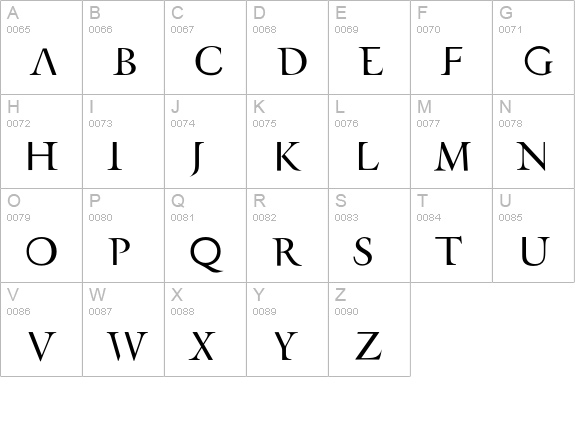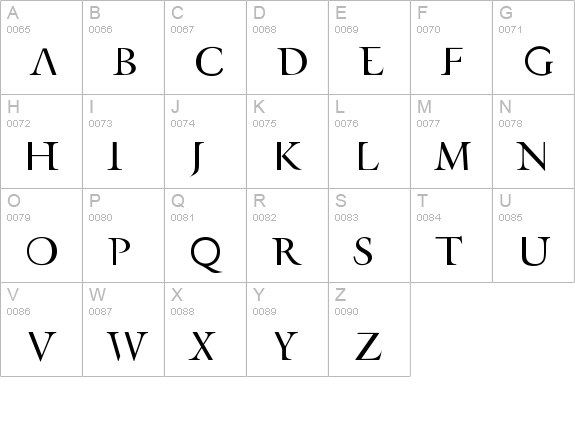
AFRetrospecta-Roman Font Details
AFRetrospecta-Roman is a timeless font that embodies elegance and sophistication. With its classic serifs and clean lines, this typeface exudes a sense of tradition and refinement. Perfect for formal invitations, corporate branding, and editorial designs, AFRetrospecta-Roman adds a touch of sophistication to any project. What's more, AFRetrospecta-Roman is available for free download at FontsMarket.com. This means you can easily add this beautiful font to your collection without any cost. Don't miss out on the opportunity to enhance your designs with the timeless charm of AFRetrospecta-Roman. Download it today and elevate your creations to a whole new level.